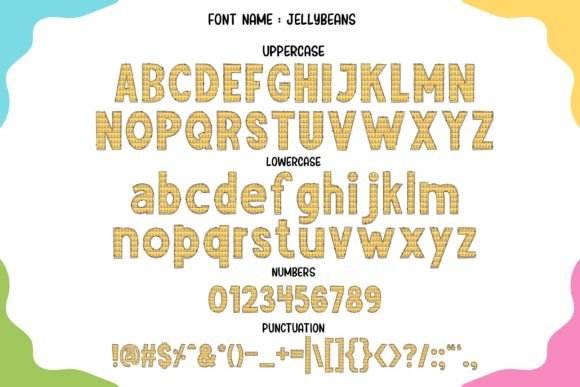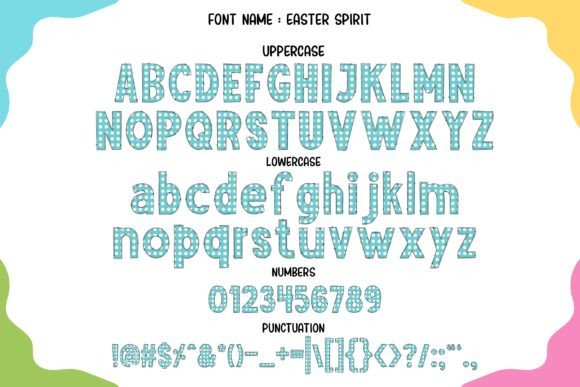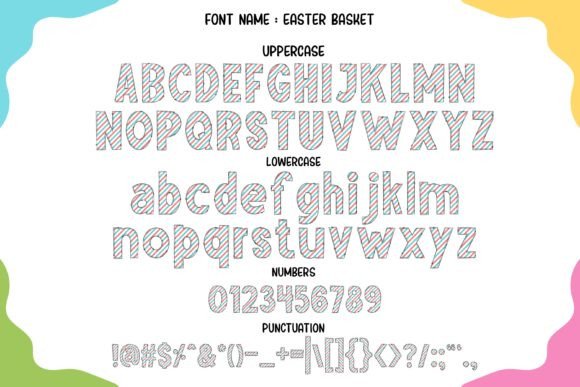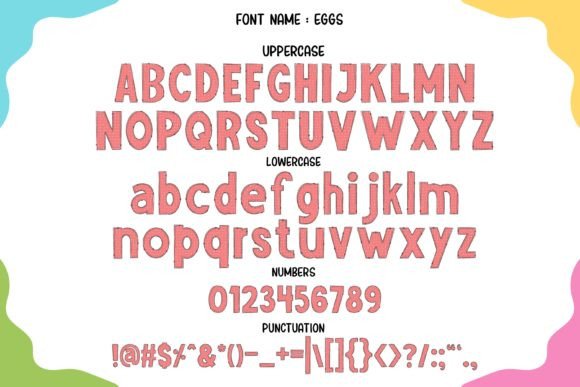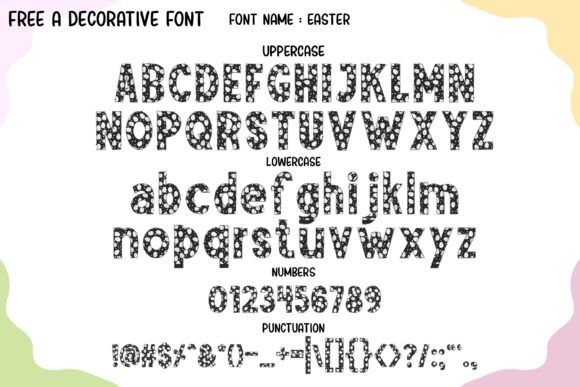
Easter Font: Add a Burst of Energy to Your Designs with Vibrant Hues
Are you looking for a font that can add a fun and playful touch to your designs? Look no further than the Easter font! This vibrant and energetic font is perfect for creating eye-catching headlines, logos, and social media graphics that are sure to stand out. With its range of bright colors, you can make a bold statement and bring a smile to your audience’s faces.
What is Easter Font?
The Easter font is a unique and playful color font that is designed to add a burst of energy to your designs. It’s perfect for designers and crafters who want to create fun and engaging content for Easter-themed projects, spring designs, or any other occasion that calls for a pop of color. The font features a range of bright and pastel colors that can be used to create stunning designs.
Uses of Easter Font
The Easter font is incredibly versatile and can be used for a variety of design projects, including:
- Headlines and titles: The Easter font is perfect for creating eye-catching headlines and titles that will grab the attention of your audience.
- Logos: The font’s playful and energetic vibe makes it ideal for creating fun and modern logos for Easter-themed businesses or products.
- Social media graphics: Use the Easter font to create engaging social media graphics that will stand out in crowded feeds.
- Craft projects: The Easter font is also perfect for crafters who want to create custom signs, cards, and other DIY projects.
Tips for Using Easter Font
Here are a few tips for getting the most out of the Easter font:
- Experiment with different colors: The Easter font comes in a range of bright and pastel colors, so don’t be afraid to experiment and find the perfect combination for your design.
- Use it for headlines and titles: The Easter font is perfect for creating eye-catching headlines and titles that will grab the attention of your audience.
- Pair it with other fonts: The Easter font can be paired with other fonts to create a unique and interesting design.
- Use it for DIY projects: The Easter font is perfect for crafters who want to create custom signs, cards, and other DIY projects.
The Easter font is a fun and playful color font that is perfect for adding a burst of energy to your designs. With its range of bright colors and versatility, it’s ideal for designers and crafters who want to create eye-catching headlines, logos, and social media graphics. Whether you’re working on an Easter-themed project or just want to add some fun and personality to your designs, the Easter font is a great choice.